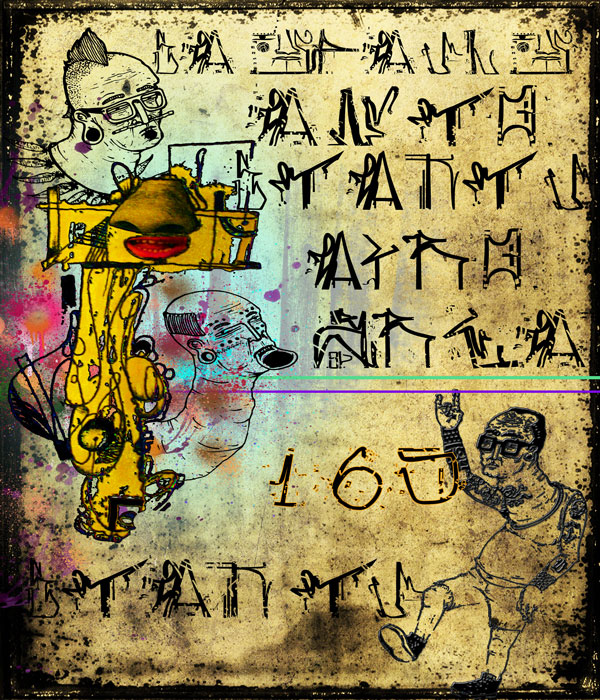
Font name: | Antropofagia |
Author: | Rabisco |
Do you like ? support by donating Antropofagia graffiti is a font that is a Brazilian graffiti, this is a style of many letters that I'm working, ways that Acadia street writers do and create is very impressive each group has a name and a different letter and label. how much more recognized in the street |